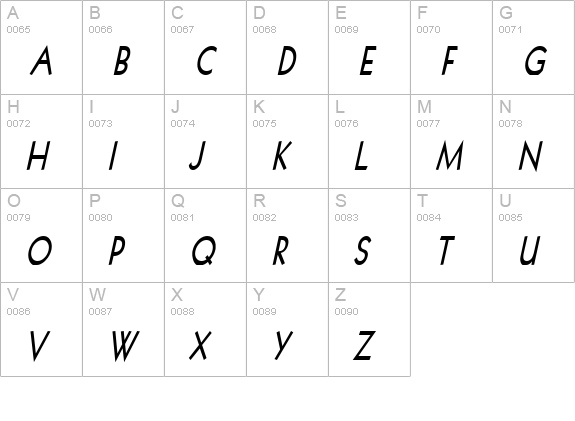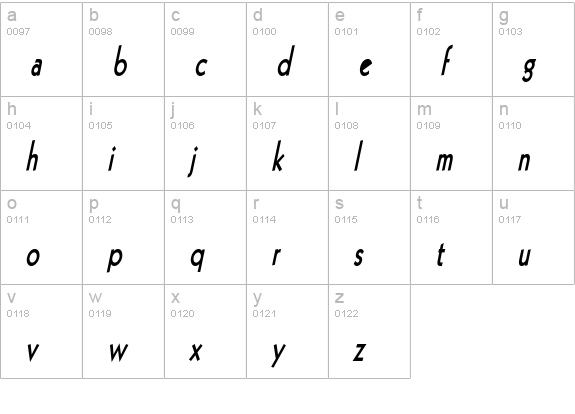
Geo 112 Thin Bold Italic is a delicate, low-contrast, italic variant in the Geo typeface family \xE2\x80\x94 well suited to fashion editorial, minimal branding, and high-contrast display.
Introducing Geo 112 Thin Bold Italic font - a sleek and modern typeface that combines sophistication with a touch of boldness. This unique font is perfect for adding a contemporary and stylish flair to your design projects. The thin yet bold letterforms exude elegance, while the italicized style adds a dynamic and eye-catching element. What's even better is that Geo 112 Thin Bold Italic font is available for free download at FontsMarket.com! This means you can easily access this versatile font to elevate your designs without any cost. Whether you're working on branding materials, web graphics, or print designs, Geo 112 Thin Bold Italic font will surely make a statement. Don't miss out on this amazing opportunity to enhance your creative projects with Geo 112 Thin Bold Italic font. Download it for free today at FontsMarket.com and take your designs to the next level!